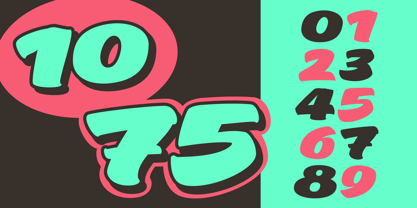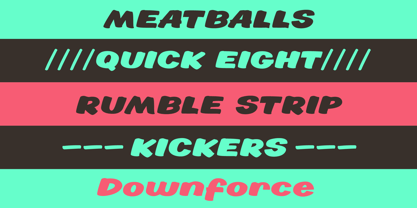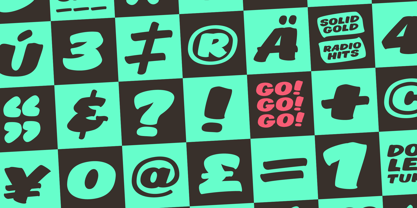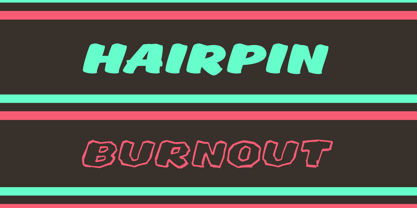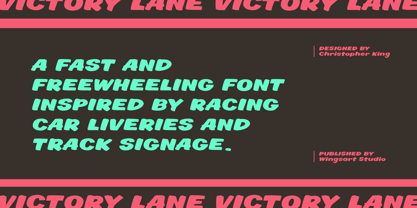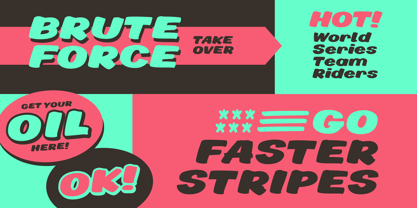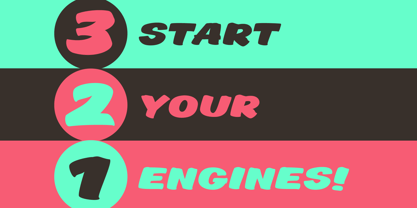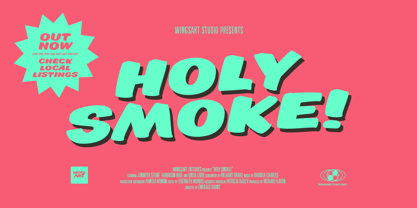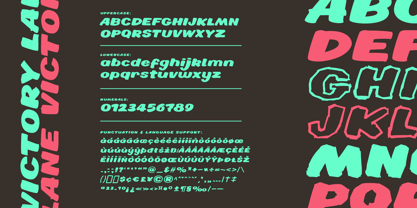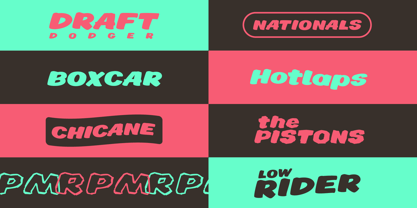
Victory Lane
The Victory Lane Font Family was designed by Christopher King and published by Wing's Art Studio. Victory Lane contains 3 styles and family package options. More about this family
Victory Lane – A Brush Font for Race Car Livery and Signage  Victory Lane is a free-wheeling brush font inspired by the lettering, liveries, and signage of the racetrack. Whether it’s Stock Car, Speedway, or Destruction Derby, this fast-paced font will carry your name and number to the finish line in style.  Its inherent italic slant and hand-painted brushwork share the visual aesthetics of petrol-heads and kustom culture, with the casual confidence of a low rider cruising at sunset. The Regular version is clean and lightweight, while the additional Sketched Outline and Shadow styles are perfect for layering graphic effects. All variations include complete uppercase and lowercase alphabets, along with numerals, punctuation, and multi-language support.  Outside of the racetrack, Victory Lane is recommended for bold headers and title designs in posters, editorials, comic books, and marketing projects. Whatever your purpose, Victory Lane is a font with effortless cool, built for winners.
Christopher King (aka Wingsart Studio) is a Graphic Designer specialising in hand-drawn lettering for film and television titles. From blockbuster films to indie press, Wingsart Studio fonts have appeared on screens big and small around the globe. His work has been used by companies including Disney, Marvel, Apple, Netflix and Paramount Studios.The Wingsart Studio philosophy is to embrace the imperfections inherent with real pens, pencils, paper and brush. In counter-balance to an AI driven age, these fonts remain refreshingly analogue and proud of their human touch. Before a single letter turns into a digital product, countless hours are spent researching and sketching out ideas in pursuit of those perfect lines and shapes.